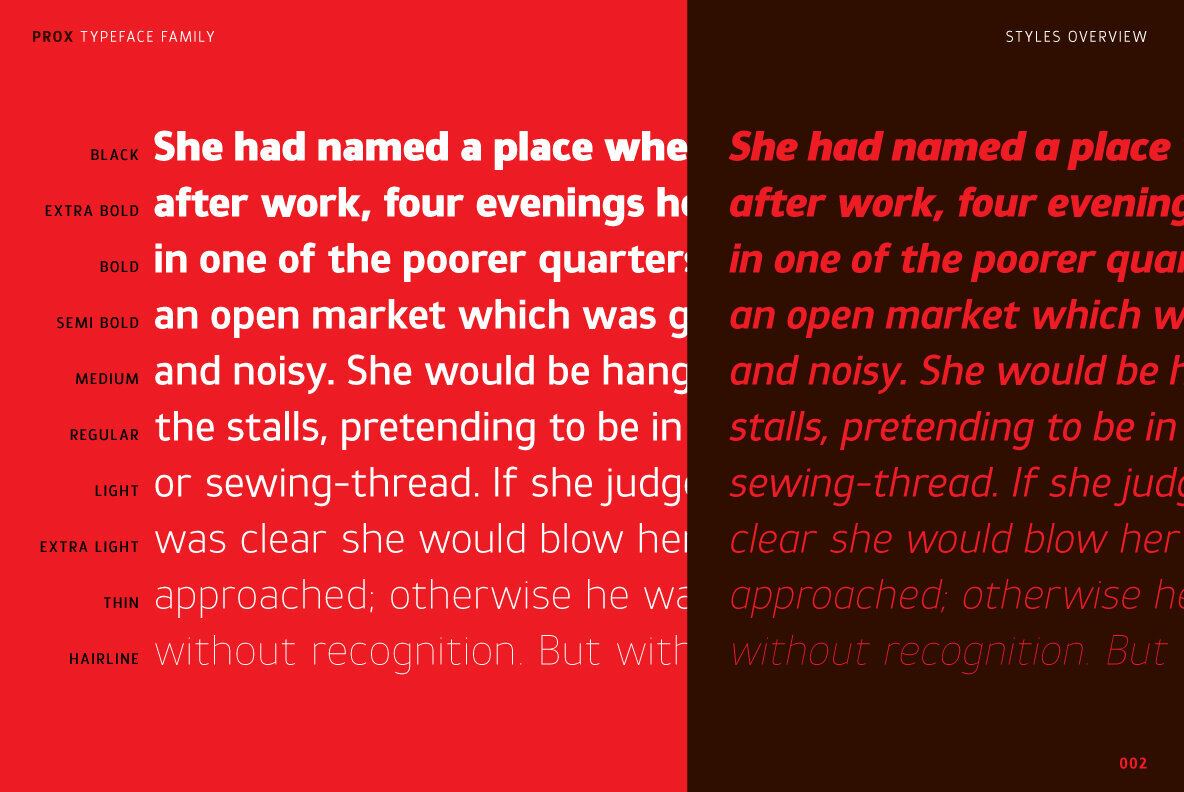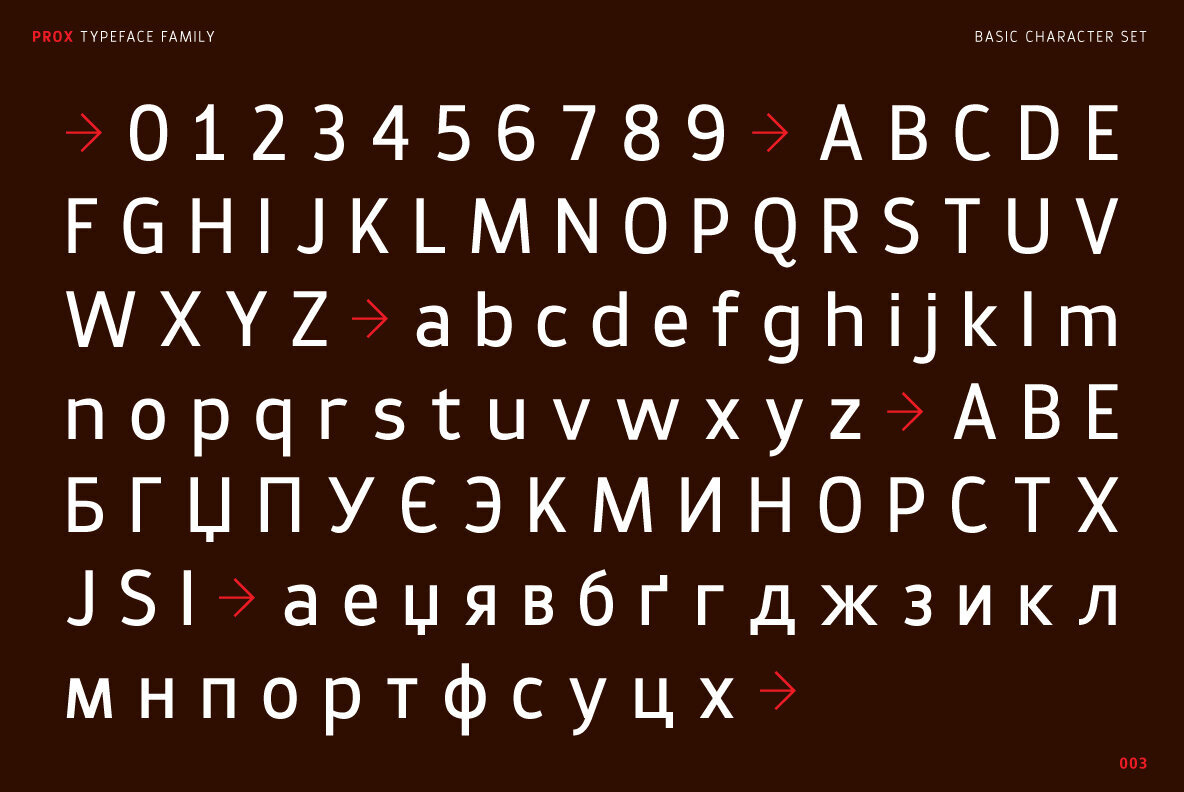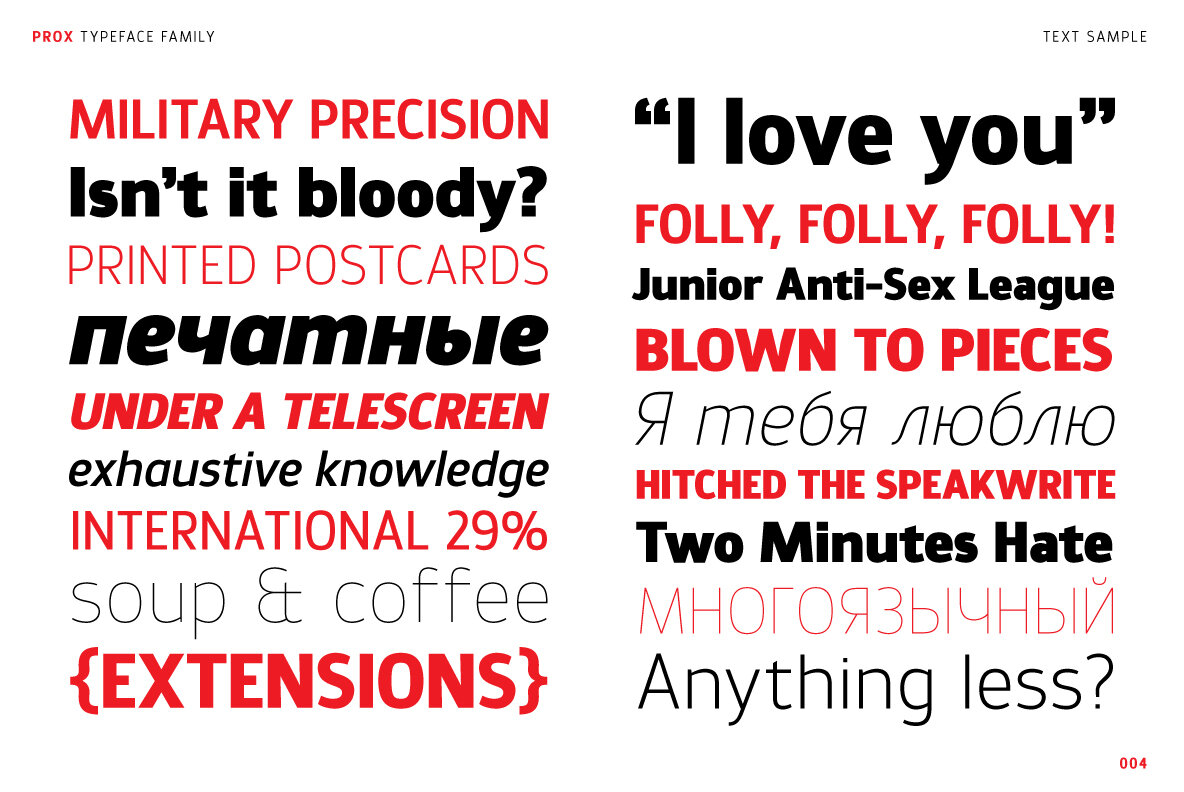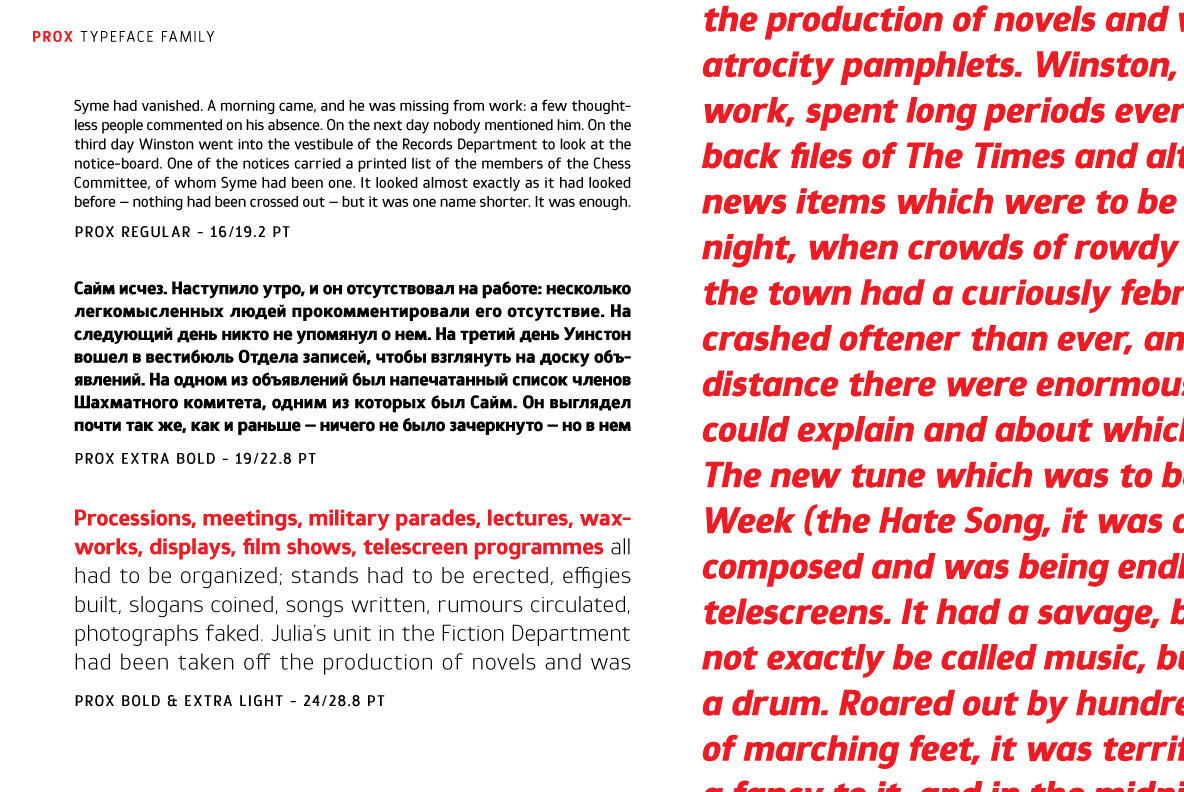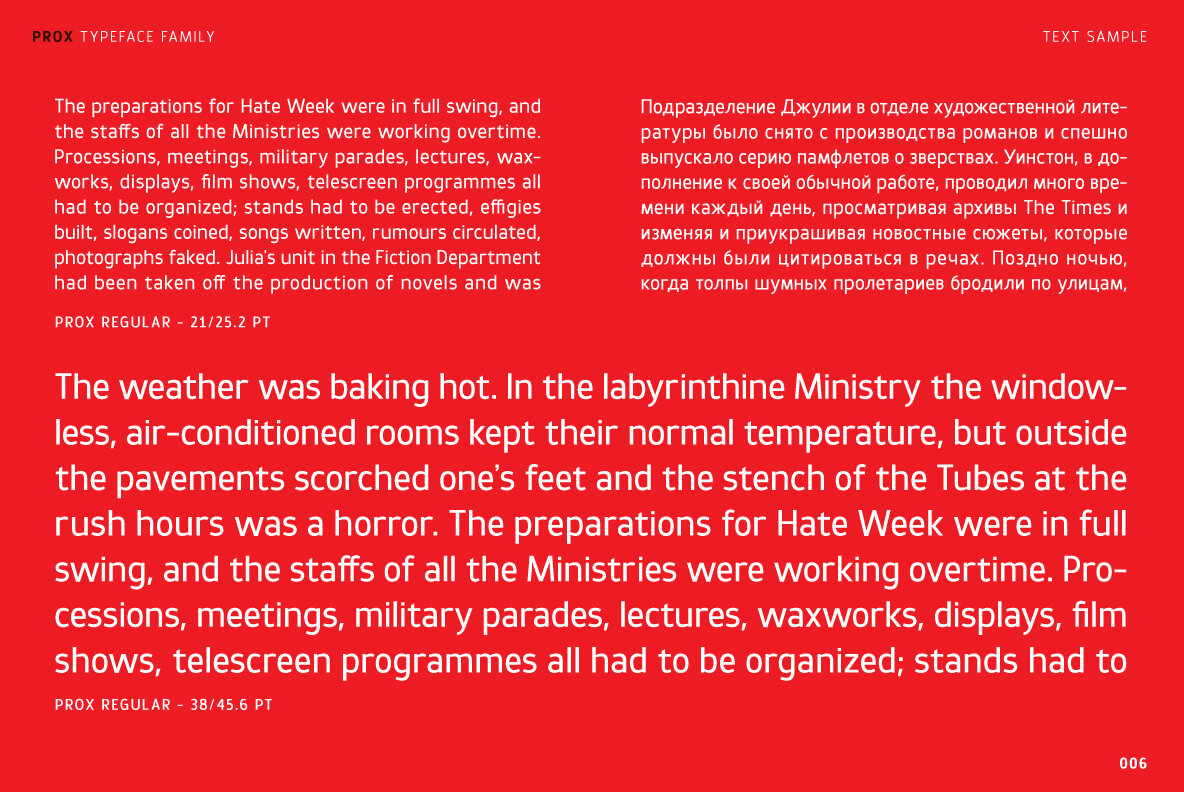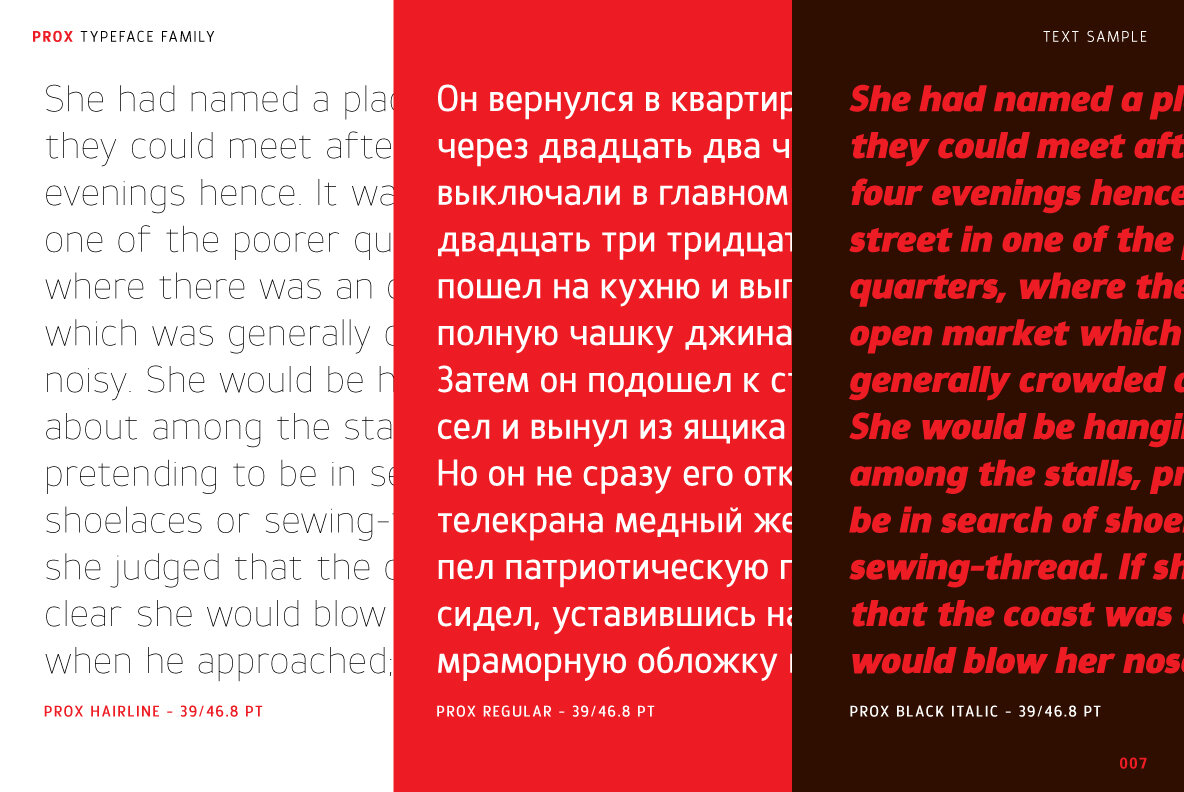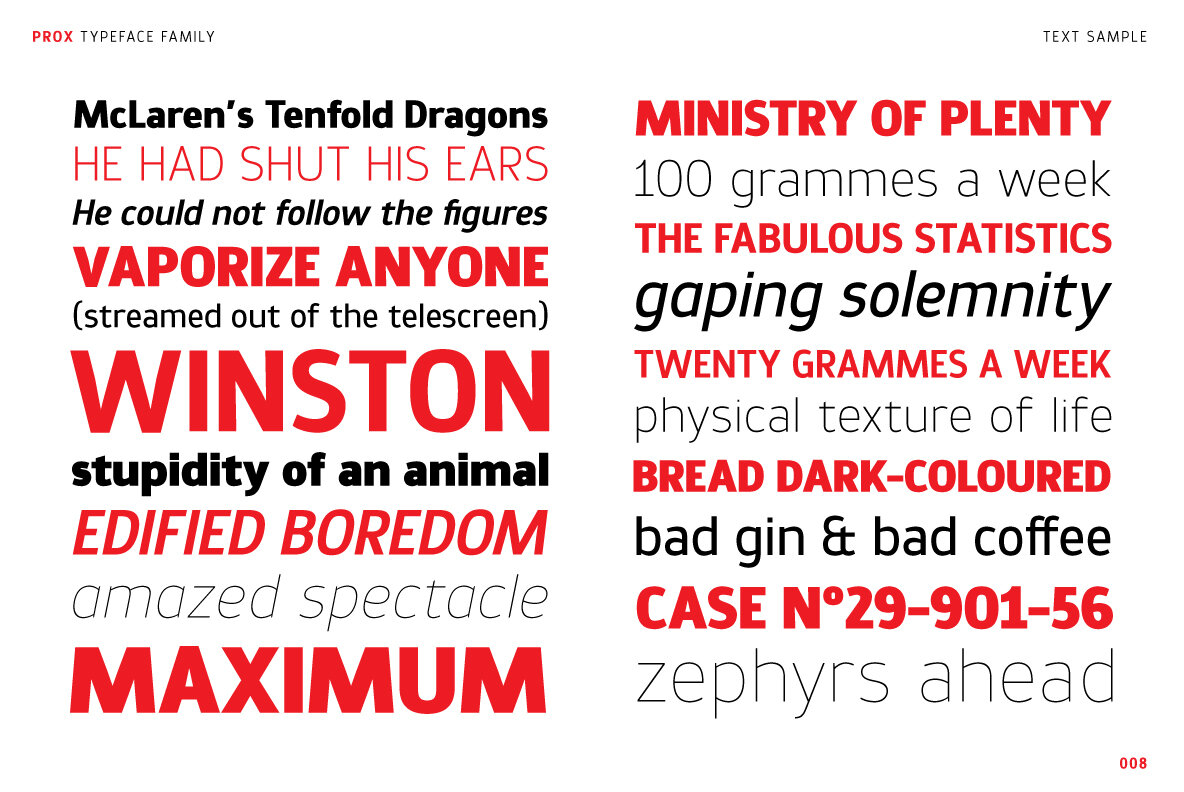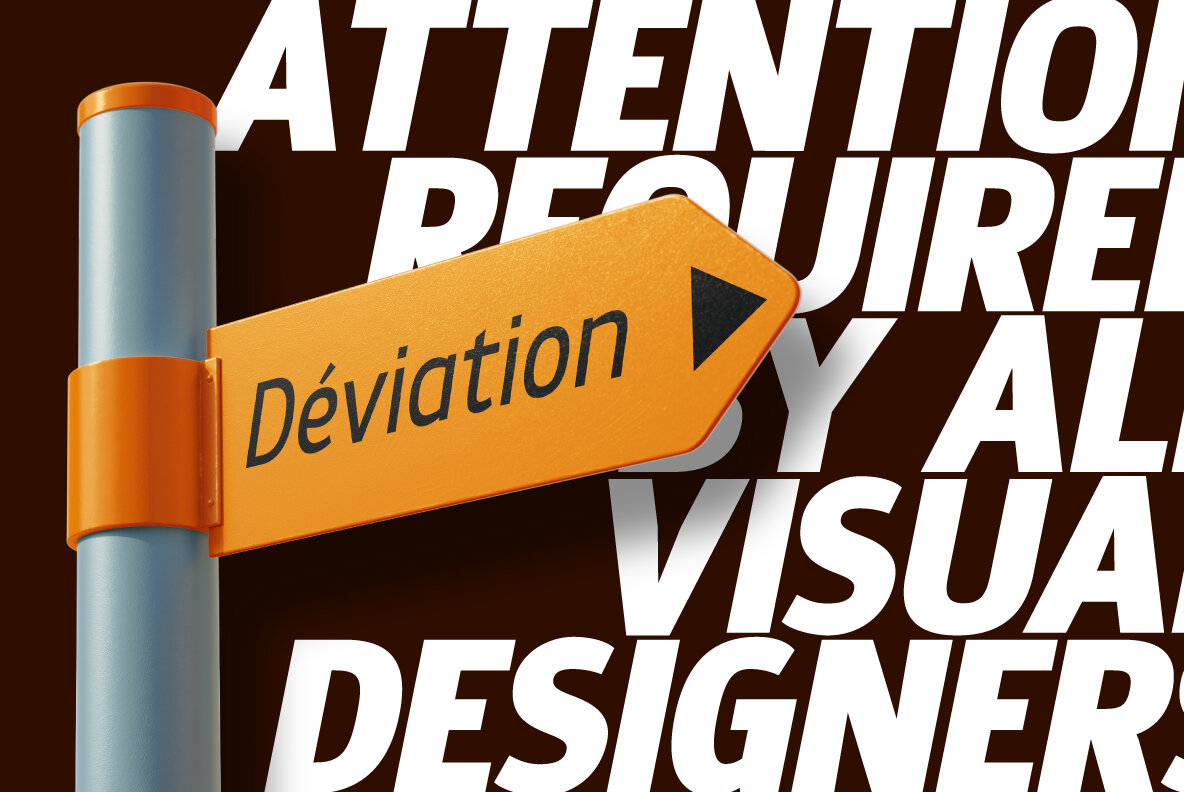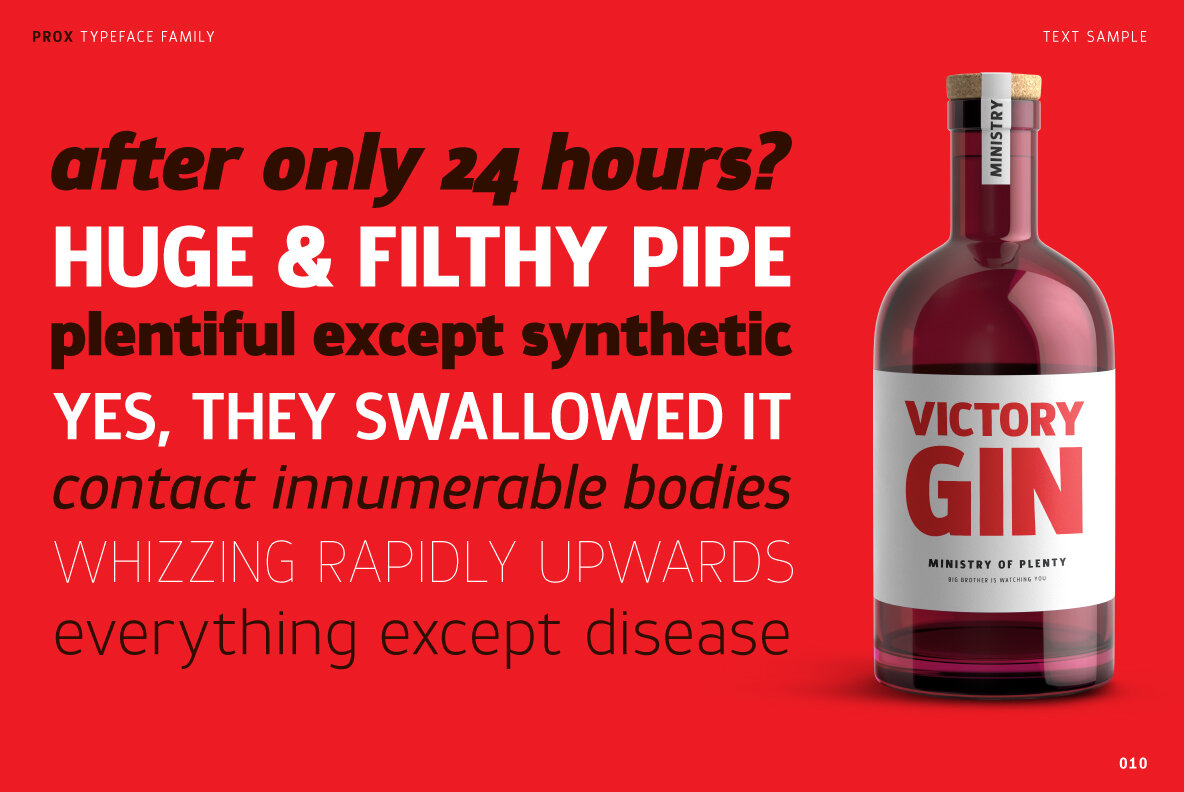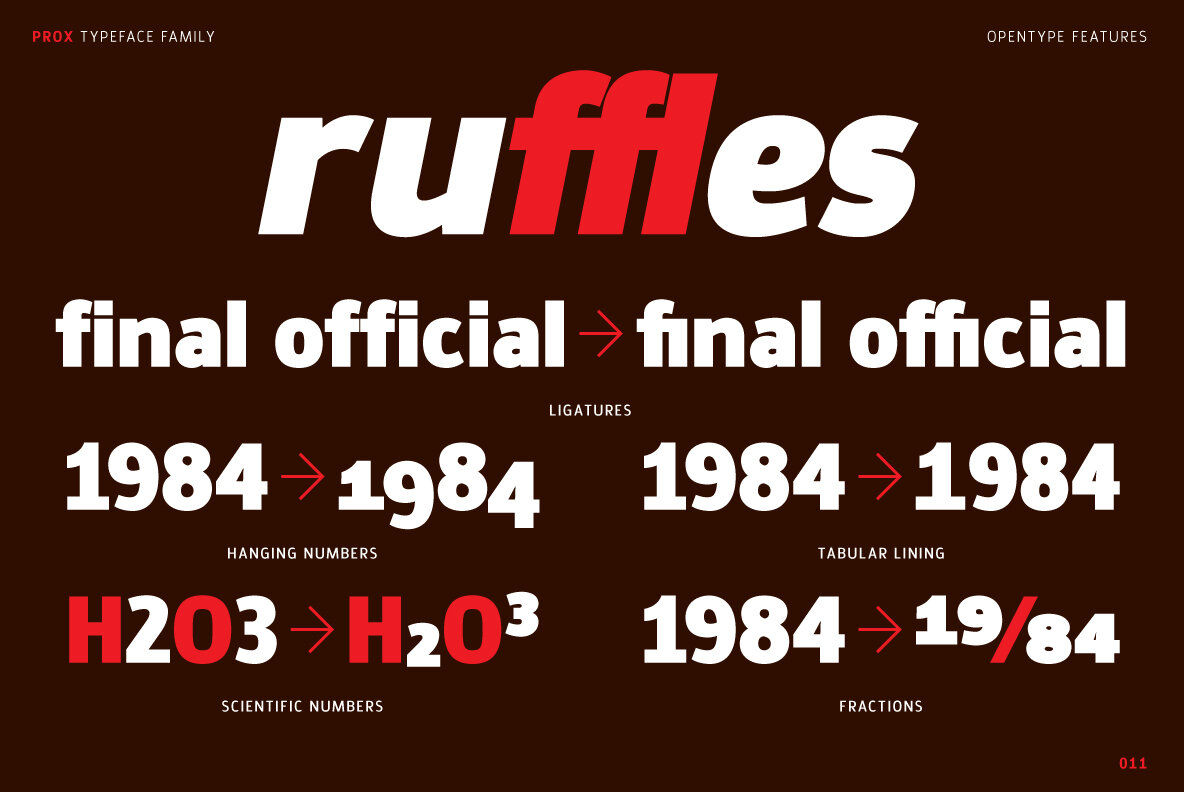
Prox Font
Prox is a contempory sans serif typeface with a narrow width that is well suited for text setting in both large and small sizes. With a slightly squared proportion, Prox stands out as an original choice yet the regular letter forms lend it a familiar feel.
After completing his studies in Switzerland, Michael Parson set up an independant graphic design studio in Geneva in 2002, focused on typography and illustration.Since then, he has worked in a wide range of medias and projects as well as releasing a series of typeface designs with Linotype, T26 and YouWork...
Expanded Opentype features with new number styles.
Added weights and Variable font.